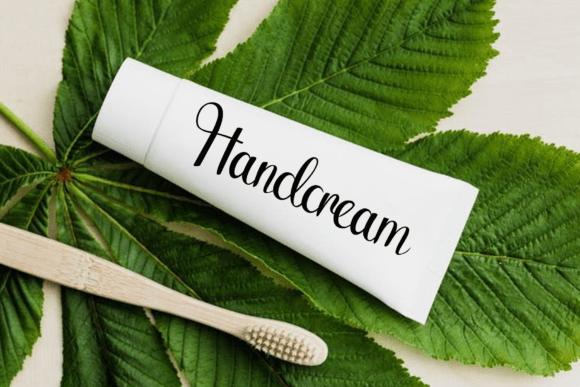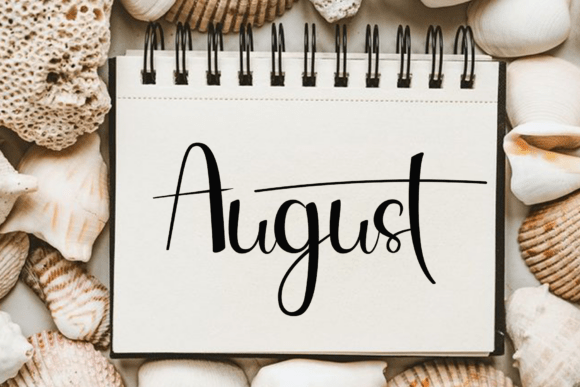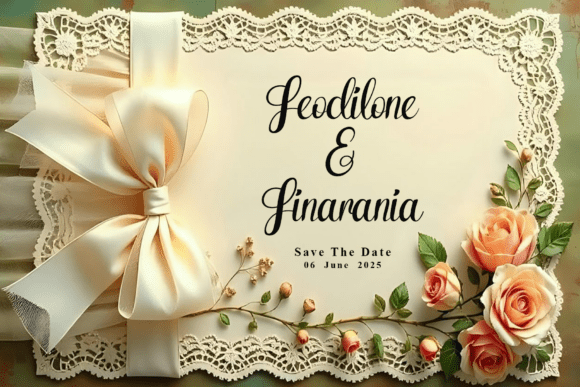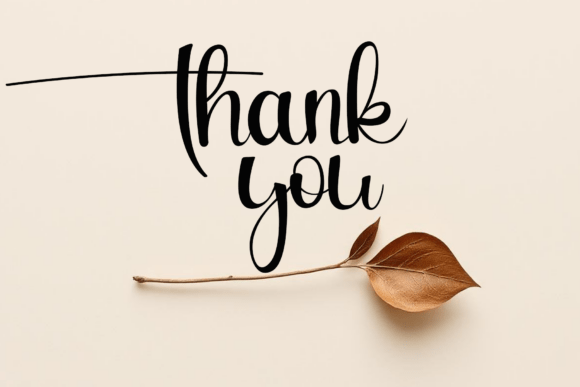
The Elegance of Australian Font: A Designer’s New Best Friend
I’ll never forget the time I was working on a wedding invitation design for a client who wanted something elegant and sophisticated. I had tried countless fonts, but none seemed to fit the bill. That was until I stumbled upon the Australian Font. Its flowing, graceful letters immediately caught my eye, and I knew I had found the perfect fit. In this article, I’ll share my experience with this beautiful font, its features, and how to make the most of it in your designs.
• ✅ Elegant and sophisticated feel that’s perfect for high-end designs
• ✅ Soft and artistic style that adds a personal touch to any project
• ✅ Works beautifully for invitations, branding, and other projects that require a touch of class
• ✅ Easy to read and understand, even in smaller font sizes
A Few Quirks to Keep in Mind 🤔
• ⚠️ Some letters may require manual kerning for optimal spacing
• ⚠️ Limited availability of certain special characters and glyphs
The Story Behind Australian Font
The Australian Font was designed by a talented typographer who wanted to create a font that captured the elegance and sophistication of the Australian landscape. Inspired by the country’s beautiful beaches, lush forests, and vibrant culture, the font features flowing letters that evoke a sense of refinement and style.
Q: What type of projects is Australian Font best suited for?
A: Australian Font is perfect for designs that require a touch of sophistication, such as invitations, branding, and other high-end projects.
Q: Does Australian Font support OpenType features?
A: Yes, Australian Font supports OpenType features, including ligatures, stylistic alternates, and glyphs.
Q: Can I use Australian Font in my craft projects?
A: Absolutely! Australian Font is a versatile font that can be used in a variety of craft projects, such as card making, scrapbooking, and DIY signage.